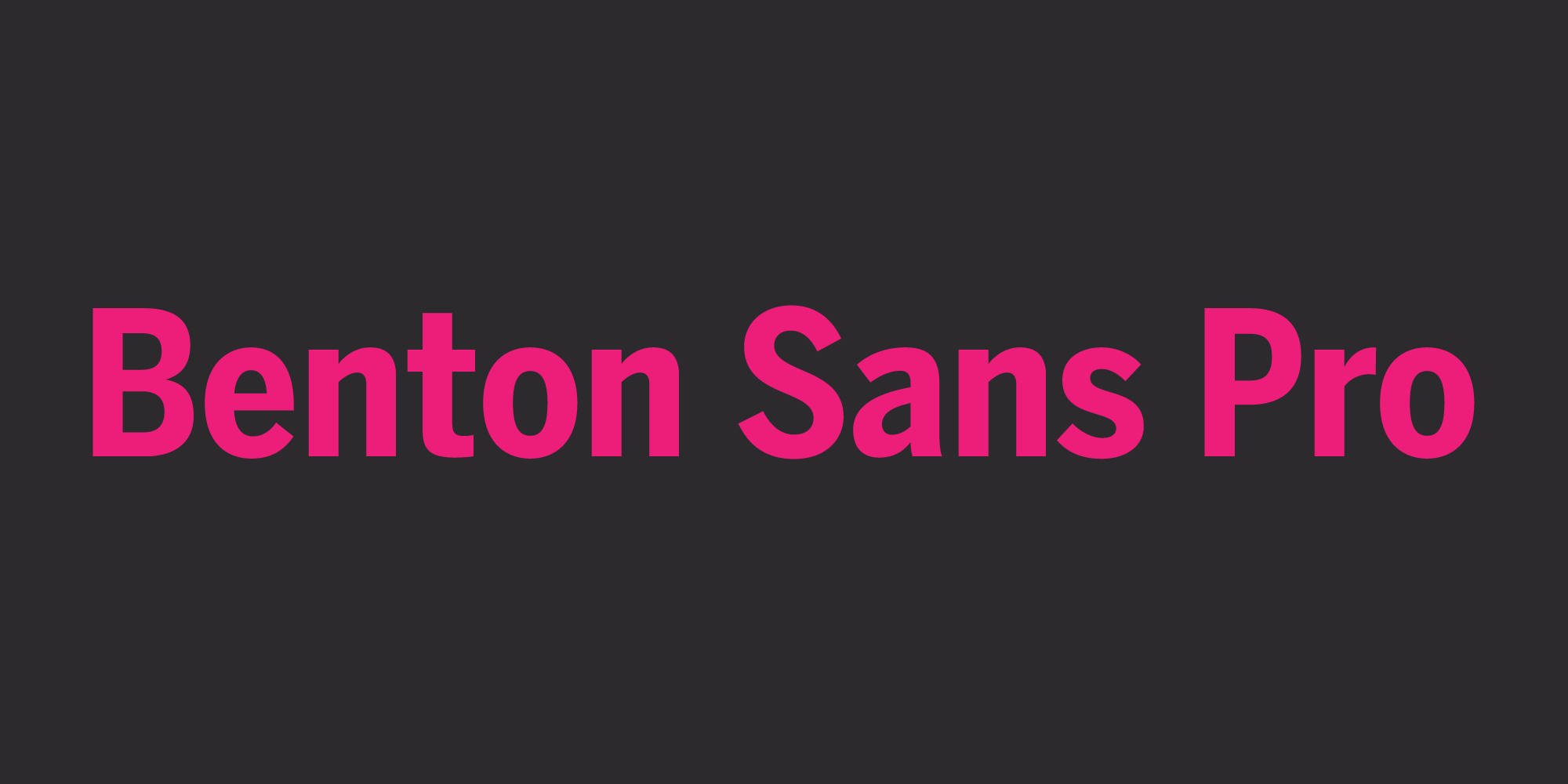
The Benton Sans Pro Font is a highly esteemed and incredibly versatile sans-serif typeface, widely recognized for its clean lines, exceptional legibility, and professional appeal. Derived from classic American gothic typefaces like News Gothic, its modern refinement makes it a foundational choice for diverse design applications. Imagine its clear, robust forms providing a strong, reliable base for high-profile corporate branding, adding a crisp, authoritative touch to editorial designs in magazines and newspapers, or forming the backbone of user interfaces for major tech companies and mobile applications. Benton Sans Pro Font also excels in signage systems, annual reports, educational materials, and any context where clarity, efficiency, and a timeless modern aesthetic are paramount. Its ubiquitous use across major brands like The Walt Disney Company, SAP, and Marvel Comics underscores its adaptability, ensuring your message is conveyed with supreme professionalism and impact.
What makes Benton Sans Pro Font so exciting is its remarkable balance of neutrality and subtle personality. Unlike some more rigid sans-serifs, it possesses an underlying warmth and openness that makes it highly approachable. This versatility allows it to seamlessly adapt to various tones, from serious and authoritative to friendly and engaging. Its outstanding legibility, even at small sizes and across different mediums (print and screen), is a key reason for its widespread adoption in professional environments. It’s more than just a typeface; it’s a design workhorse that consistently delivers clarity, efficiency, and a contemporary aesthetic that remains fresh over time. Designers value its extensive family, which provides precise typographic control for creating organized and visually appealing layouts.
The Benton Sans Pro Font family is truly comprehensive, offering a vast array of weights, widths, and styles that cater to virtually any design need. Beyond the core Benton Sans Pro Regular, the family typically includes a rich spectrum from ultra-thin weights like Benton Sans Pro Thin and Benton Sans Pro Extra Light, through Benton Sans Pro Light, Benton Sans Pro Book, Benton Sans Pro Medium, Benton Sans Pro Bold, and up to heavy weights like Benton Sans Pro Black. Each of these weights usually comes with corresponding Benton Sans Pro Italic versions. Furthermore, the family often boasts various widths, including Benton Sans Pro Condensed, Benton Sans Pro Compressed, and Benton Sans Pro Extra Compressed, each available in multiple weights and italics. Professional versions also include extended language support, small caps, and a variety of numeral styles, providing immense flexibility for sophisticated typesetting and complex design systems.